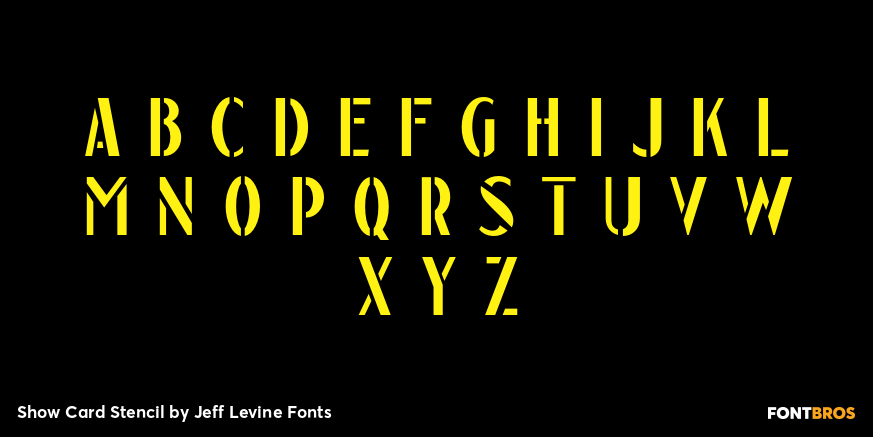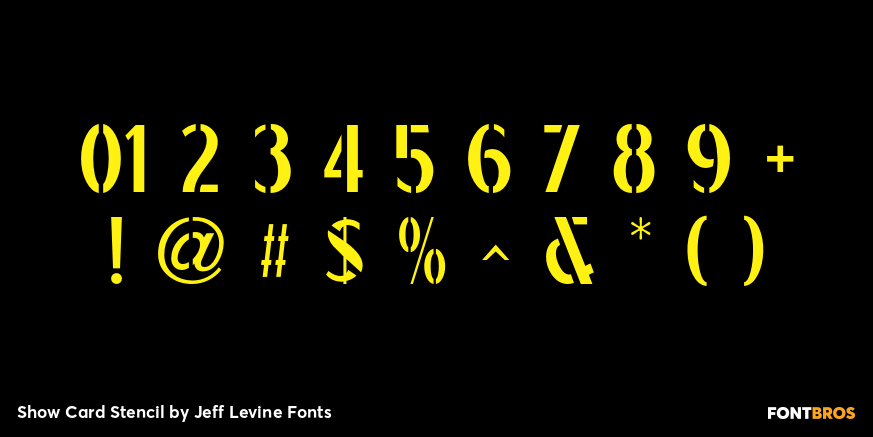
Show Card Stencil
Buy NowFor decades, the National Show Card Writer Company of Minneapolis, MN produced sign making kits used by shopkeepers, schools, churches and many other types of organizations.
The standard sets were comprised of two part stencils that when overlaid, produced finished lettering, or a buyer could choose the same type style designs with a stand stencil letter.
From one of these templates comes Show Card Stencil JNL, in both regular and oblique versions.
Take note that the U, V and W have the heavier vertical strokes reversed. As this was the way the original stencil design was manufactured, if has been retained for this digital type as well.